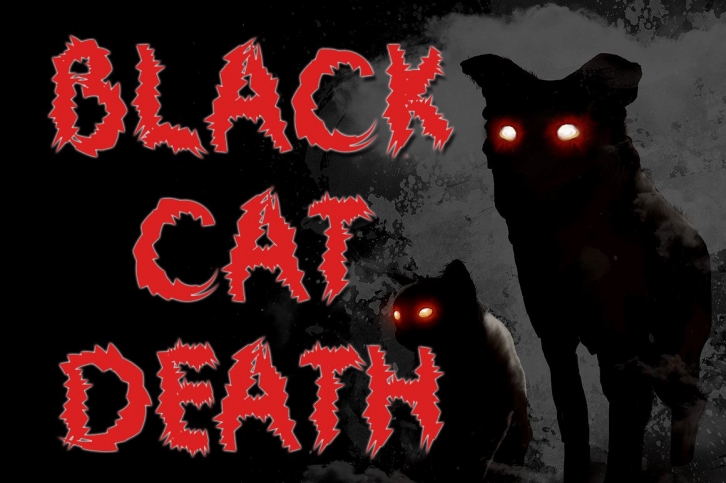
Black Cat Death is an interesting and unique display font that looks both solemn and scary! It would be a great choice for movies, sci-fi books, spooky apparel designs, horror games, and more!